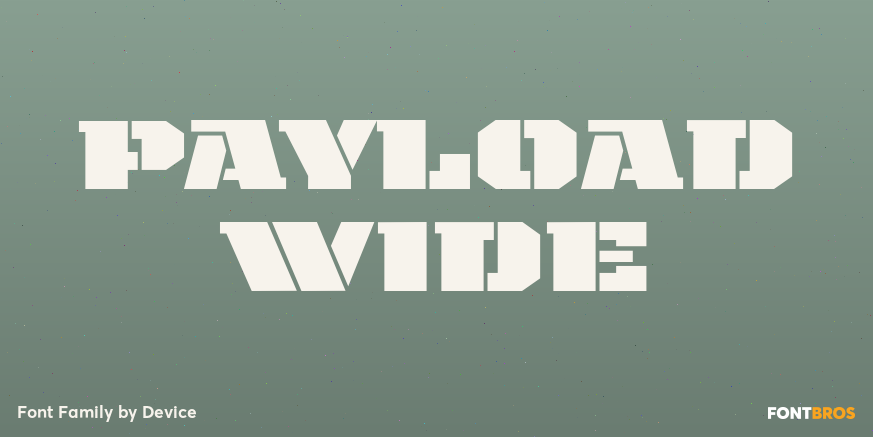
Payload Wide
About Payload Wide
Payload began as an early concept for Loaded magazine, and here is developed into a clean outline and rough splattery spraycan version. In this font, the upper and lower case characters are subtly different enabling a more realistic appearance to be…